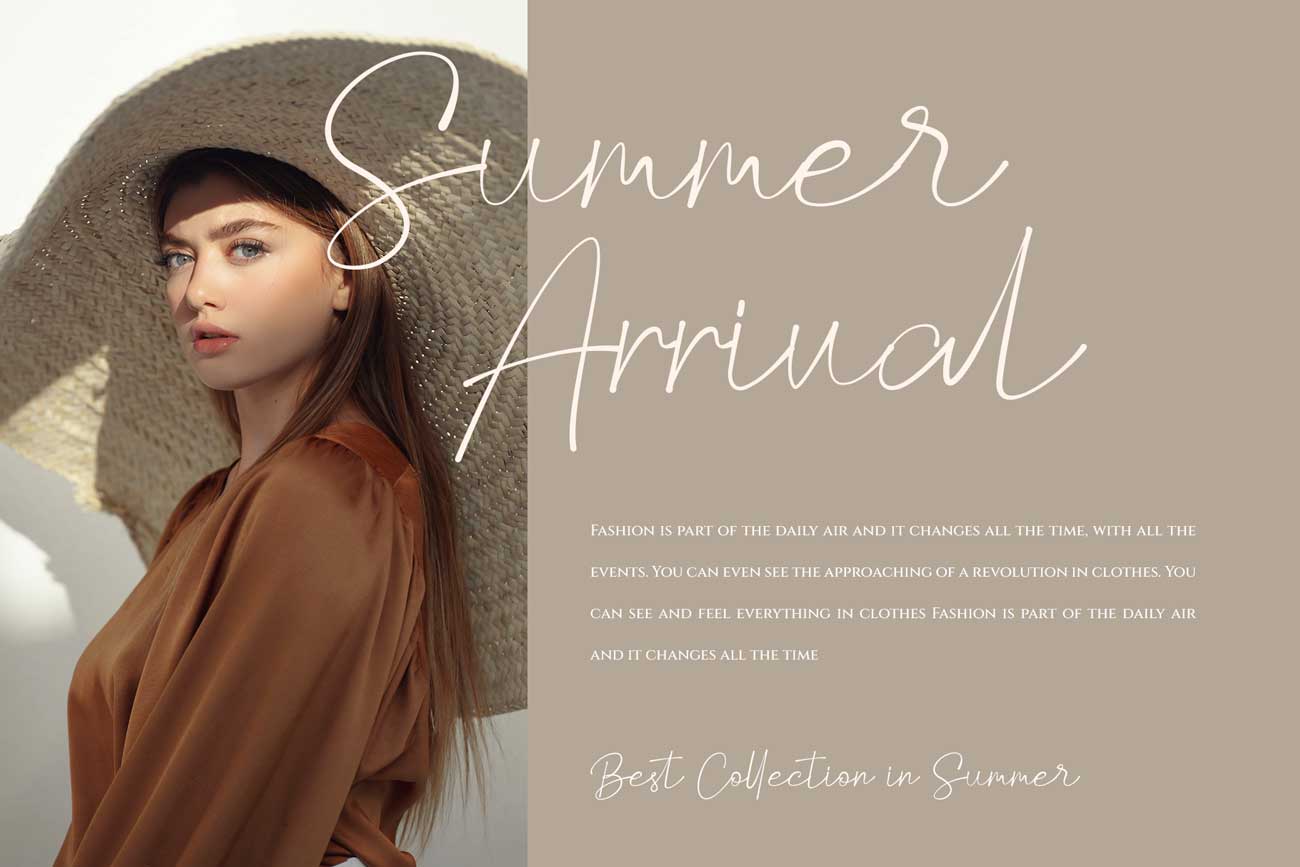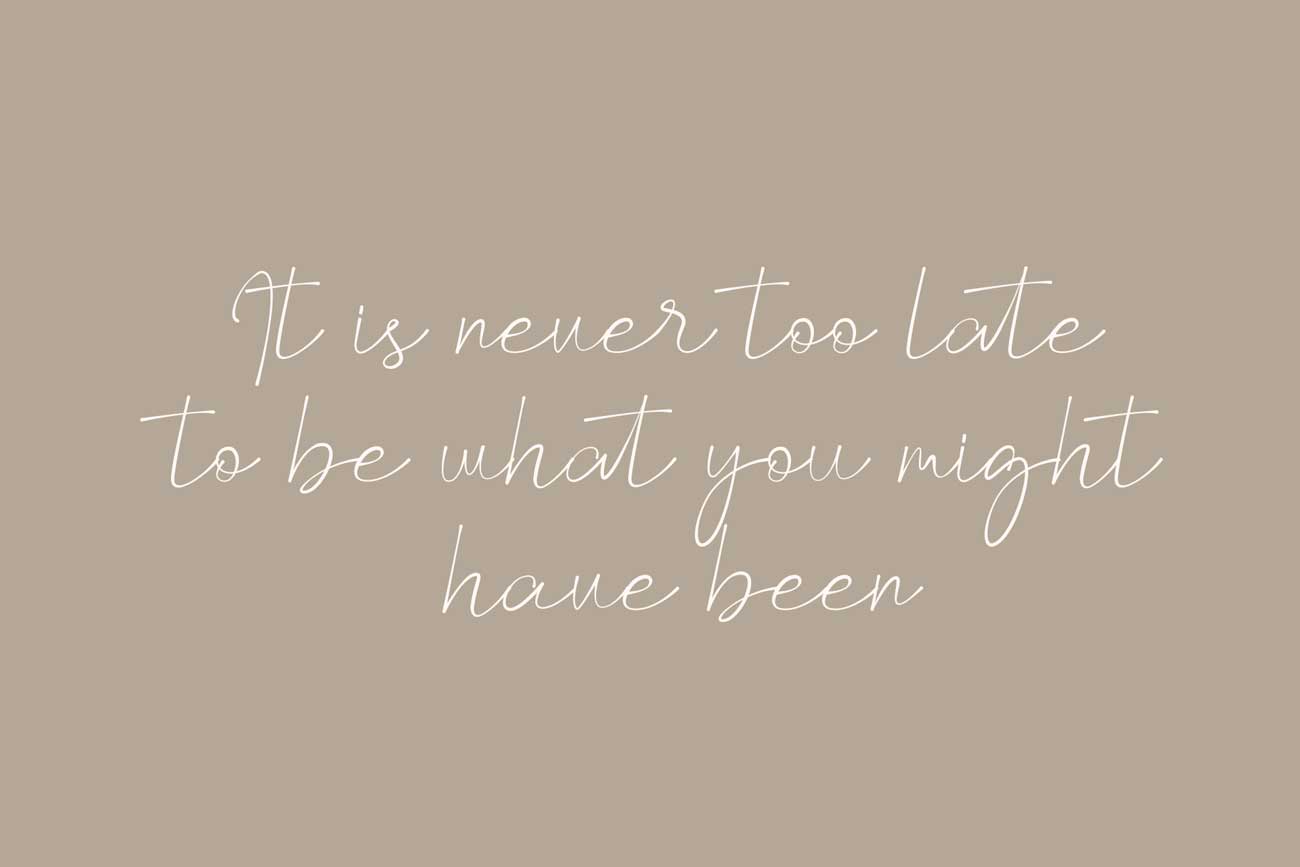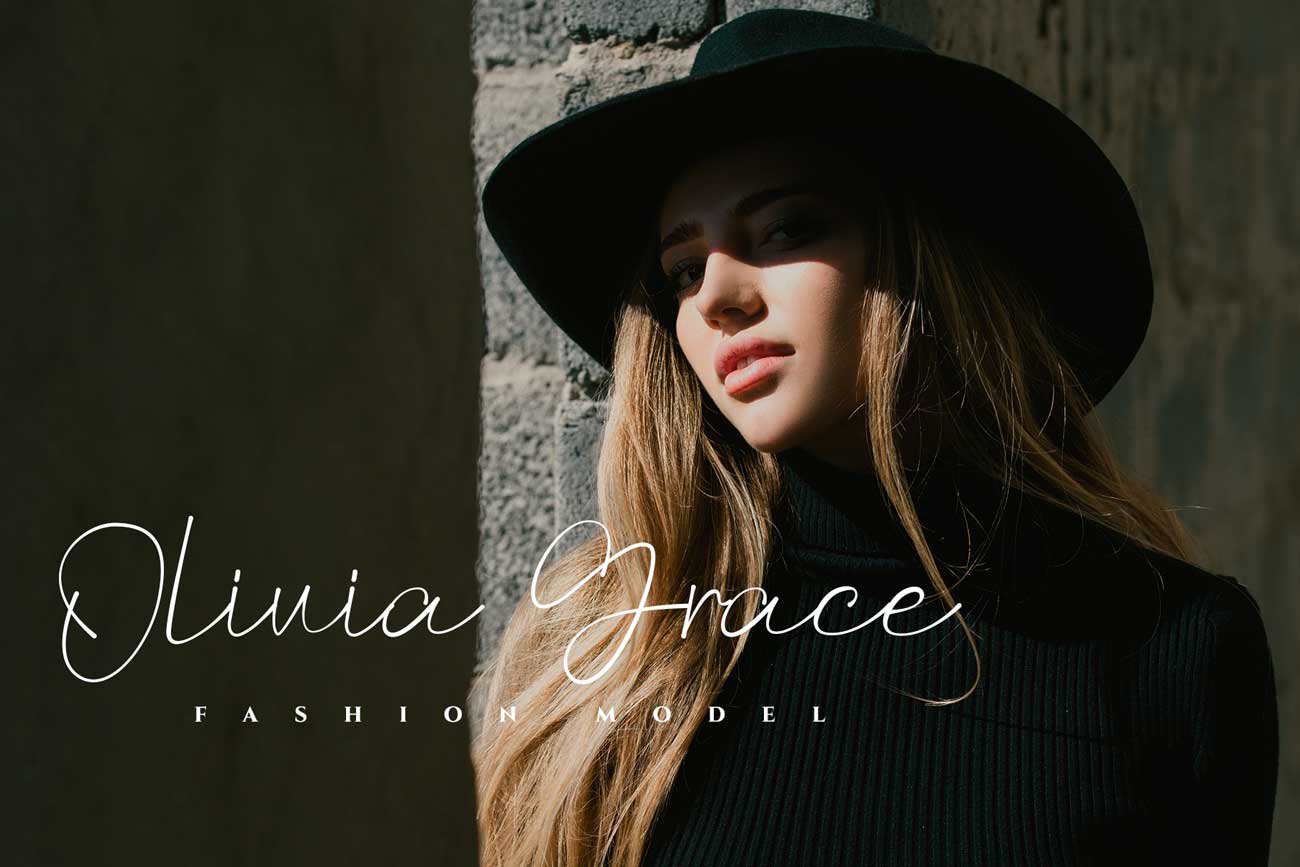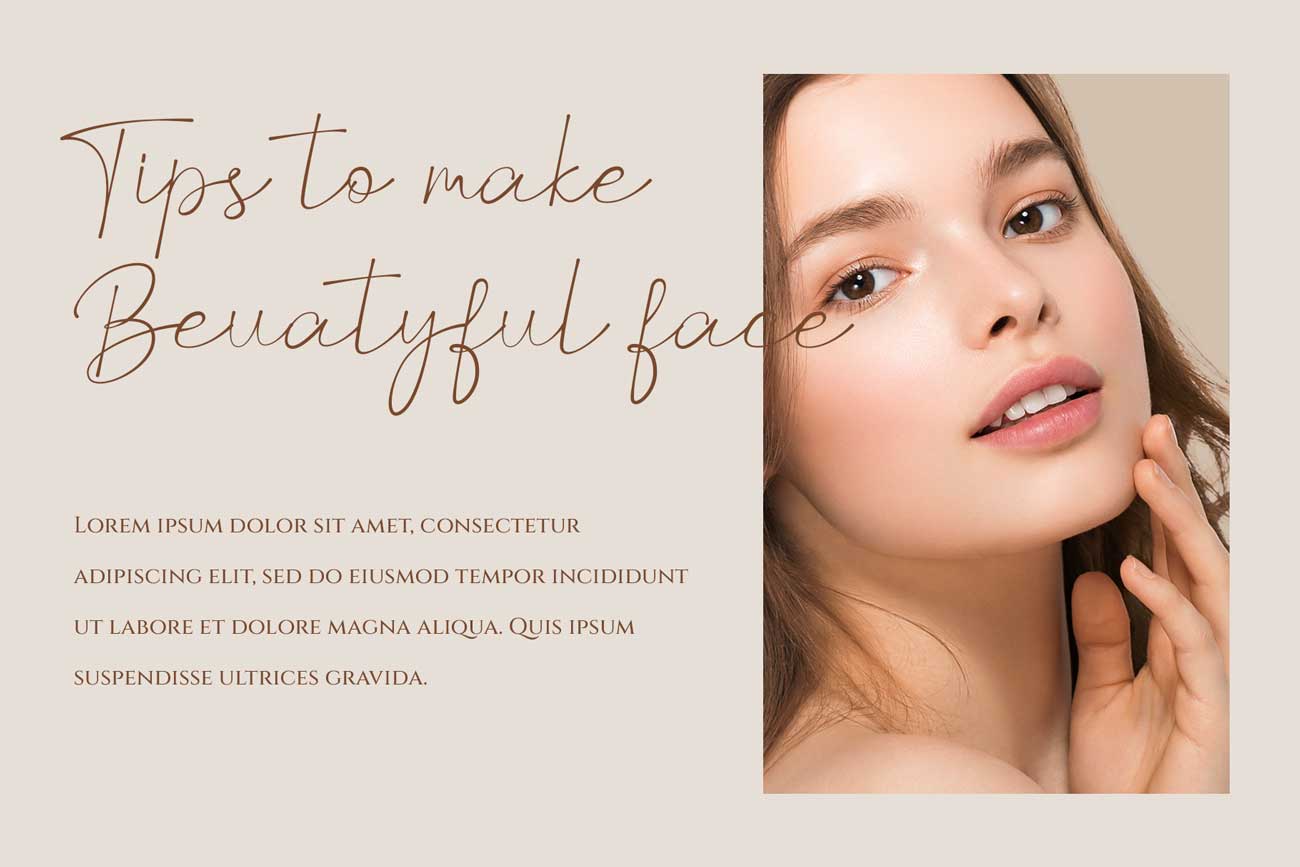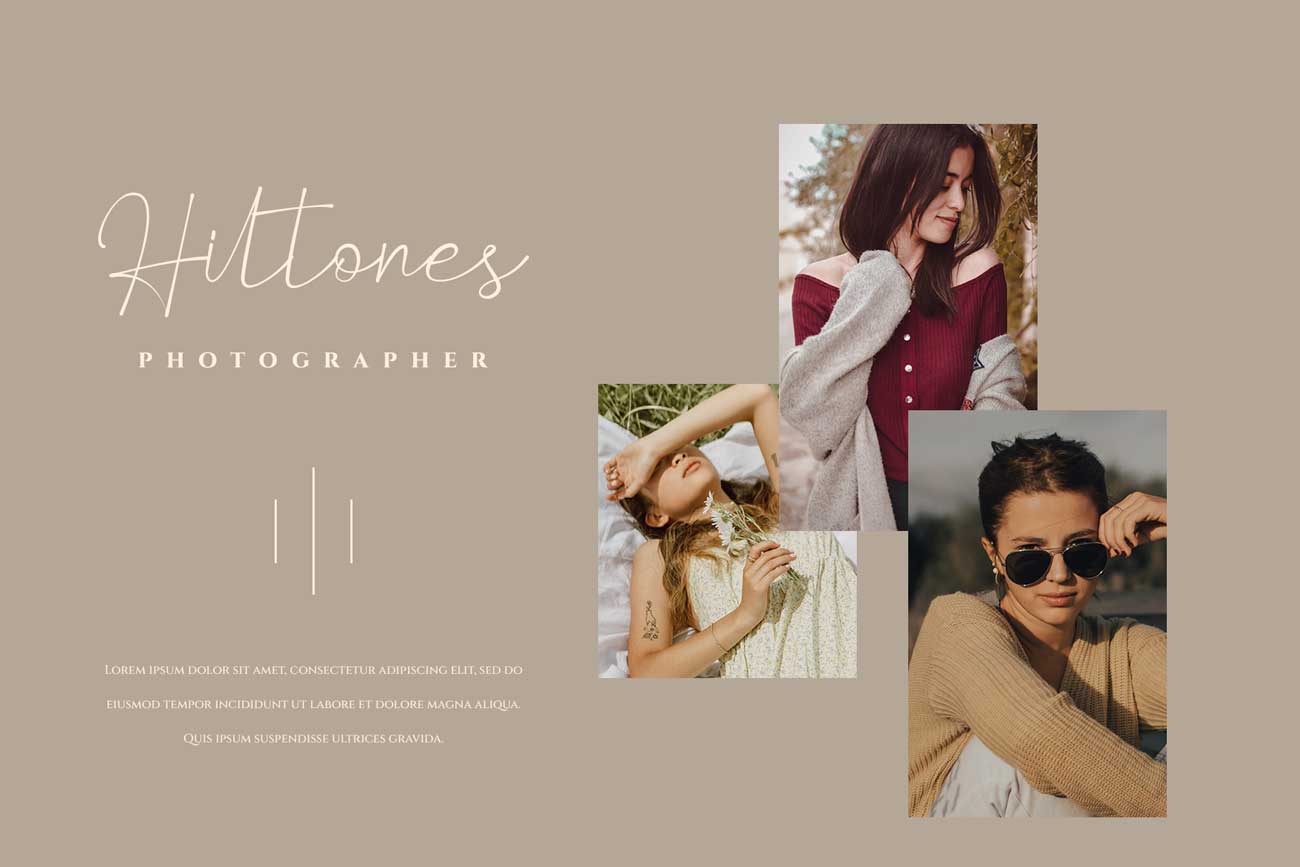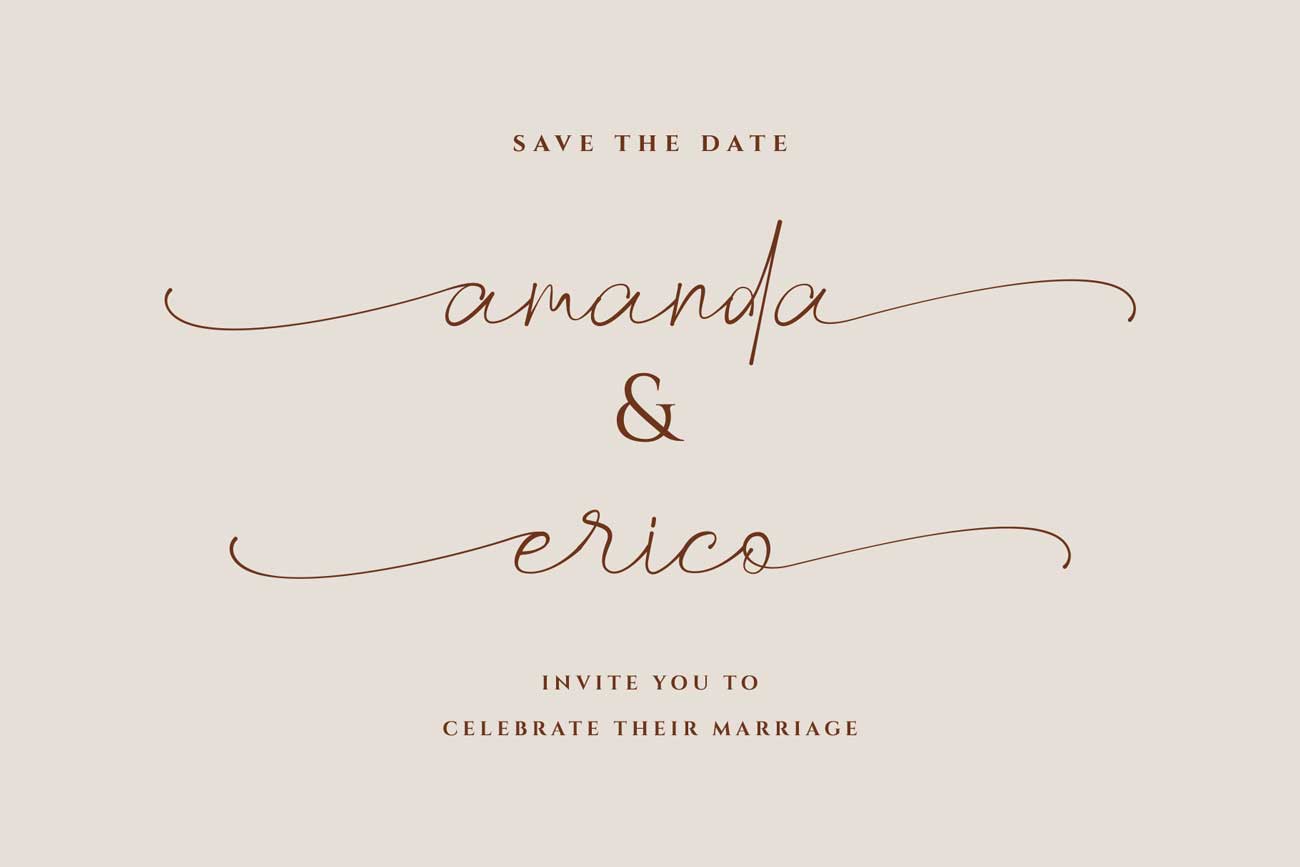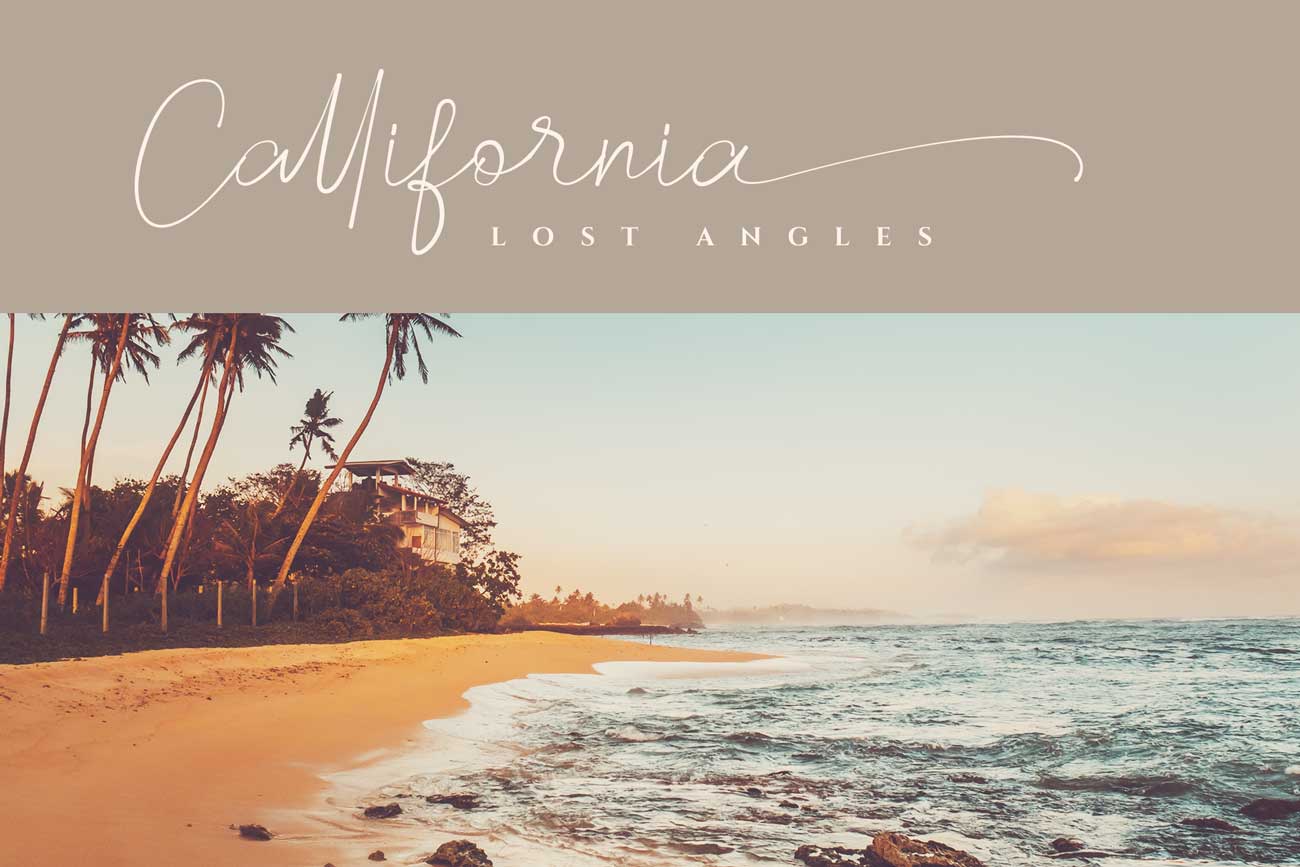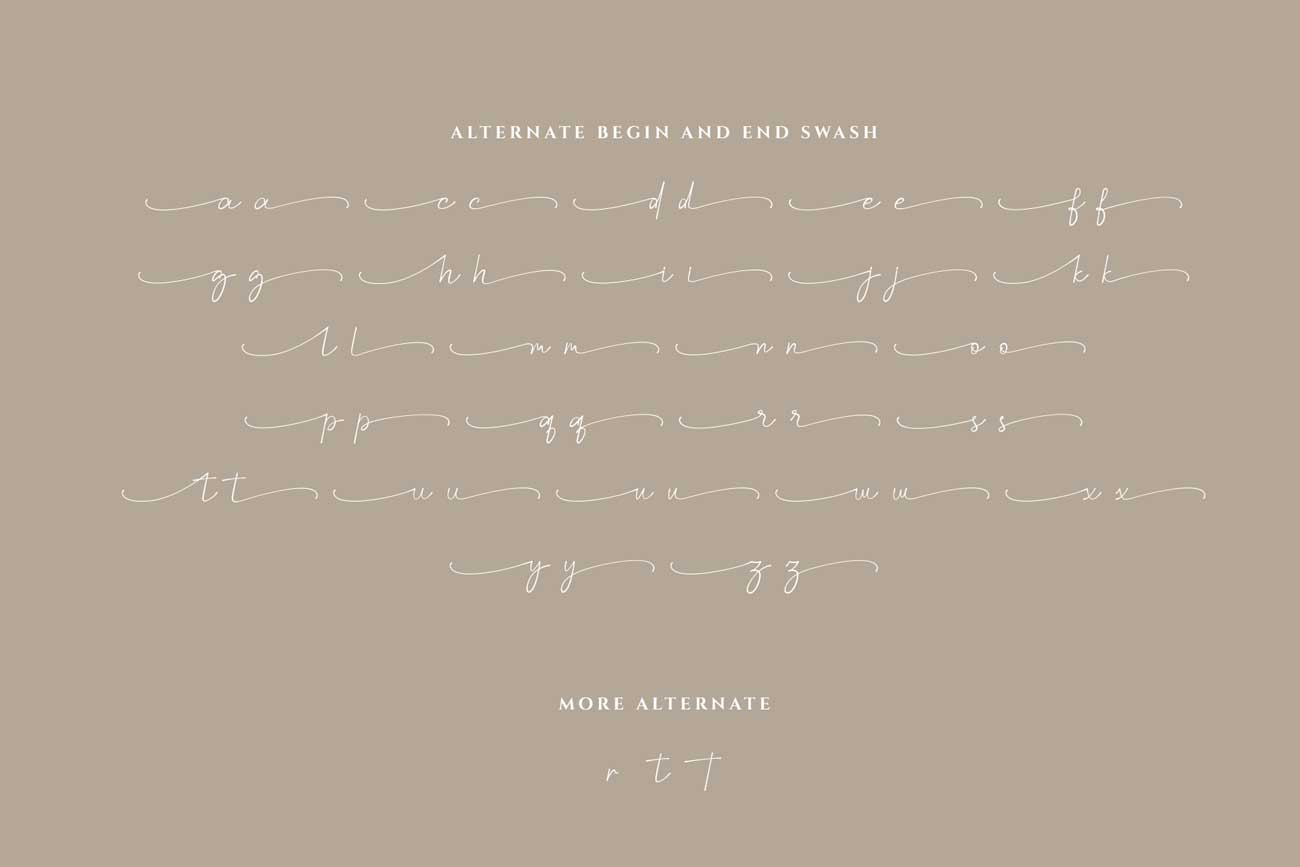
Melliora stylish authentic font
Melliora is natural signature style which can be interpreted professional. we keep this font looks modern, readable, stylish, catchy and easy to use. Melliora is the great choice for watermark on photography, signature or signature logo design, quotes, album cover, business card and many other design project.Melliora has a more swash you can use it for make your design awesome.Melliora here to make your work to high level!!!
• Basic Latin A-Z and a-z
• Swash